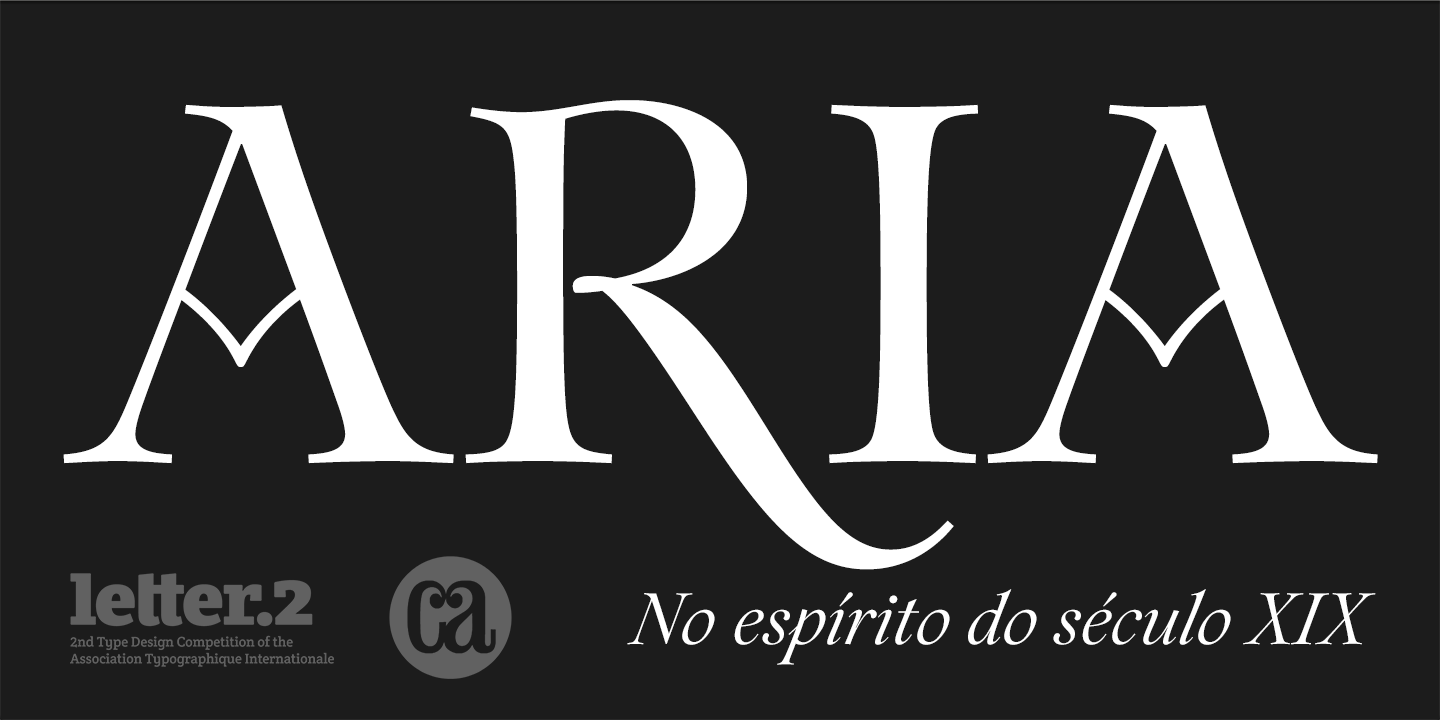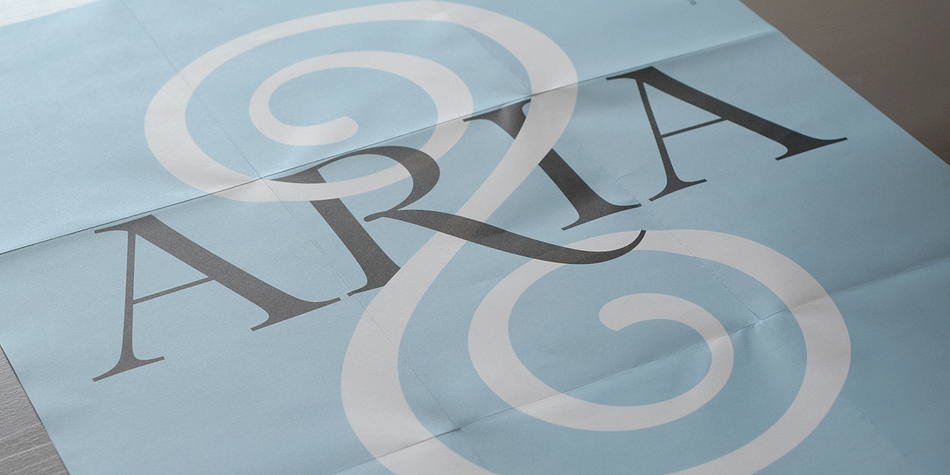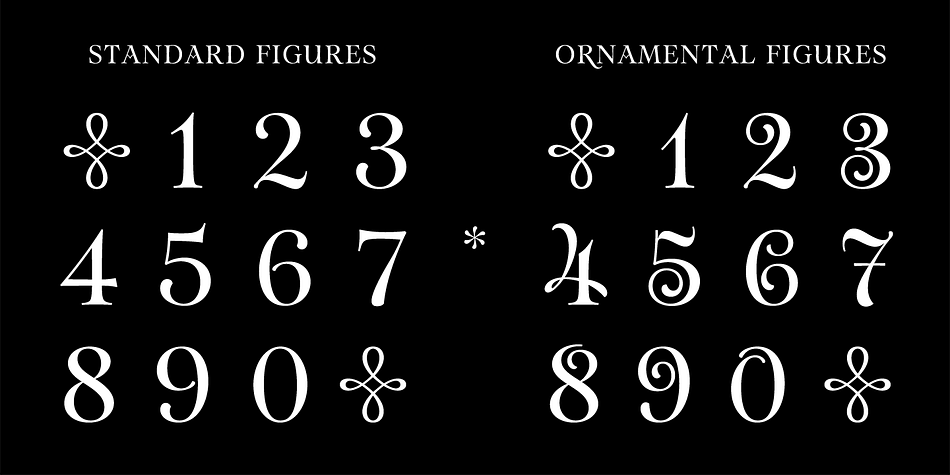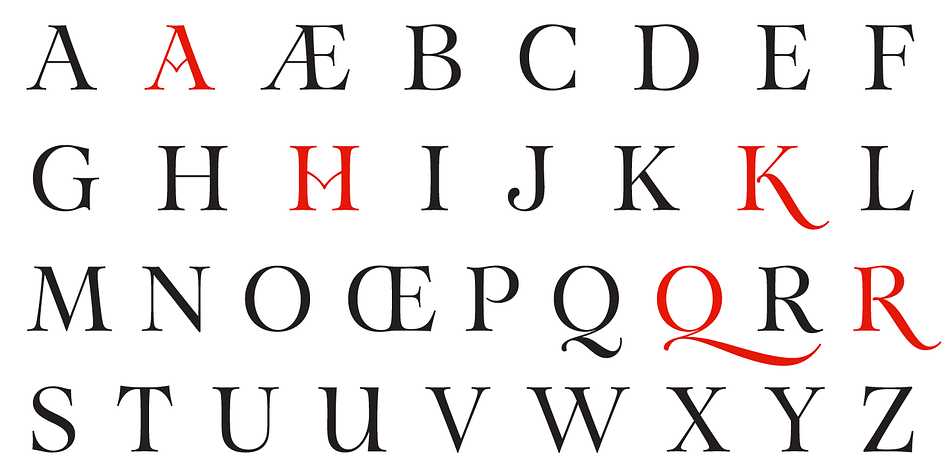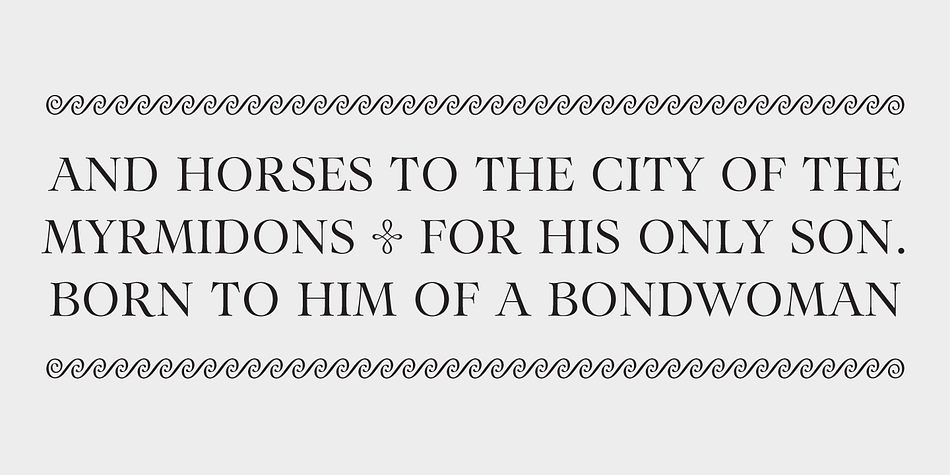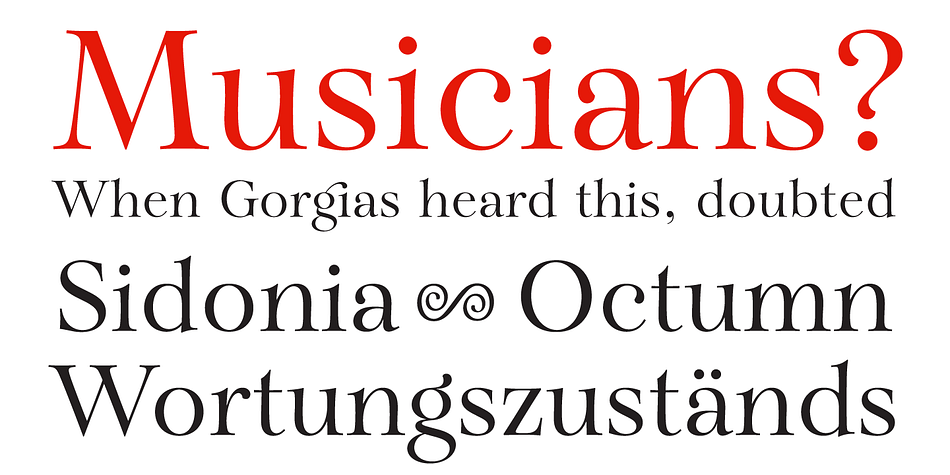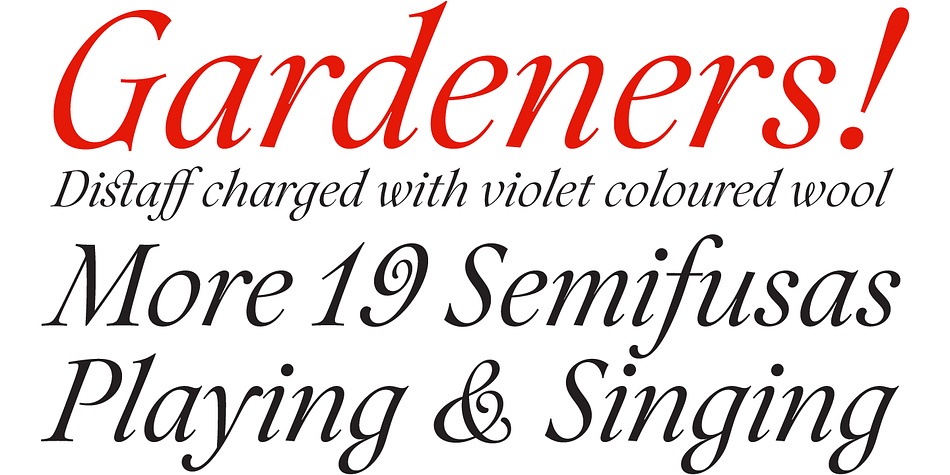
Aria Pro is a serif font family. This typeface has two styles and was published by Rui Abreu.
Aria Pro is a titling face inspired by the epigraph of a frame of a nineteenth century painting, Cinco Artistas em Sintra by João Cristino da Silva, belonging to the collection of the Museu do Chiado. The high contrast letterforms, their overall quirkiness and the lyricism of the painting itself, served as the theme to the design of this transitional style typeface. That approach allowed for some exuberance on the regular style, but also led to more calligraphic letterforms on the italic.
Aria Pro comes with an extra set of ornamental numbers, stylistic alternates, ornaments and more.
Aria Pro was a winning entry of Atypi Letter.2; was selected for the Typography Annual 2 of Communication Arts and was one of Typographica’s favourite typefaces of 2011.